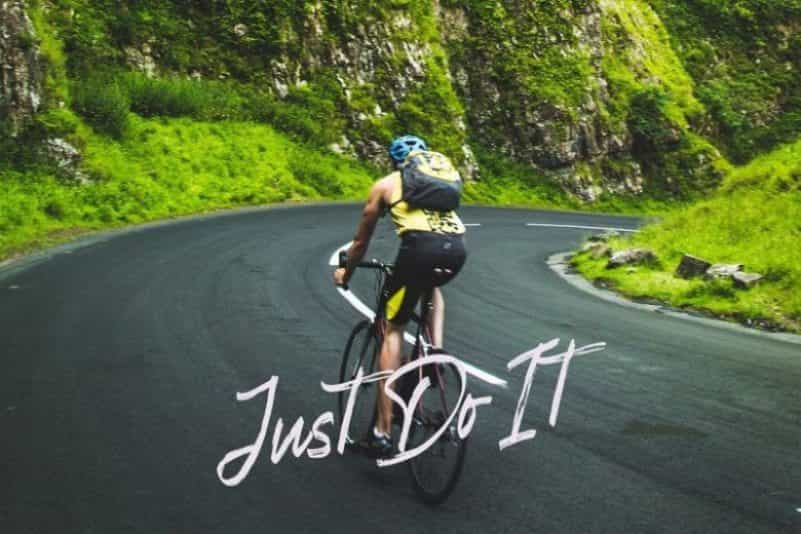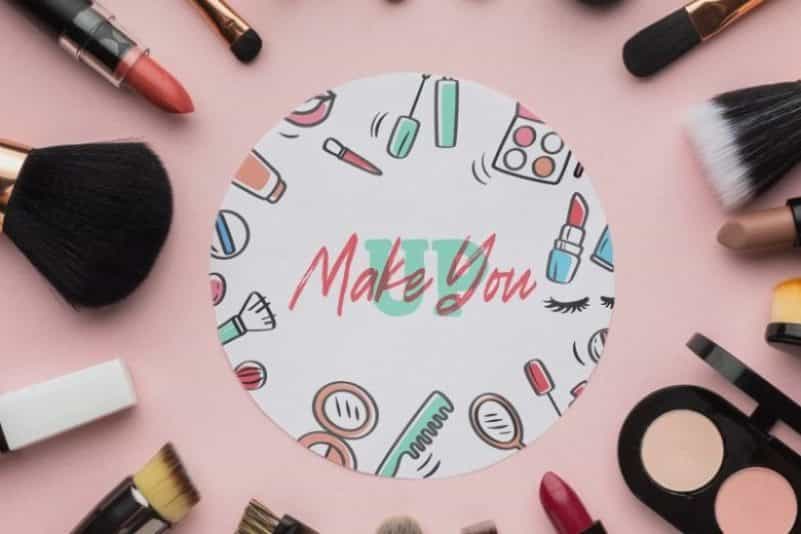
Refresh Screen Font Duo come with a hand Brush font which is best suited when paired with its condensed classy companion. This font was made with handwriting, and it has a contemporary and original forms of calligraphy, the style of writing is very spontaneous.